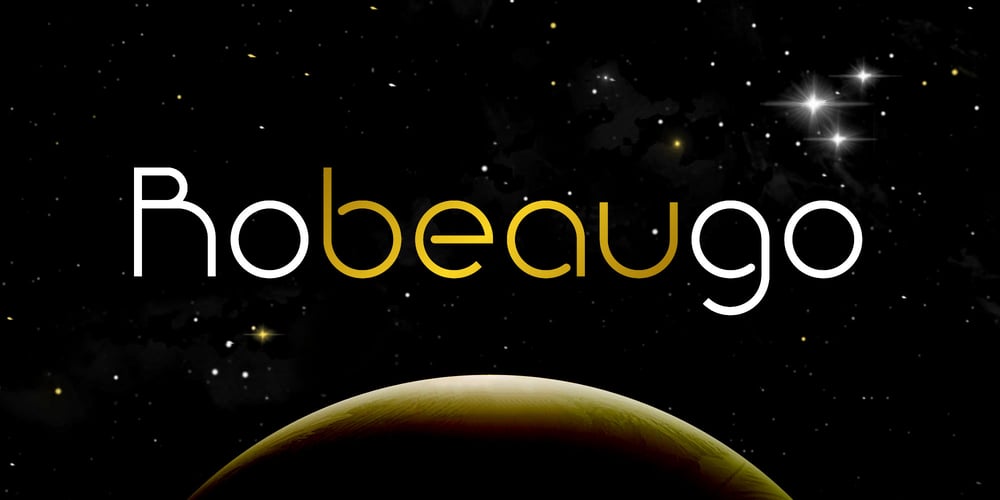
Robeaugo
Robeaugo font
Robeaugo Font Family was designed by Stephan Kamperman and published by Stephan Kamperman. Robeaugo contains 4 styles and family package options. Robeaugo is pronounced as “ro-bo-go”. The name is originated out of the 3 words: robo, beau (French) and go. It’s a mix of Art Deco with round shapes and is best used in headings and logos.